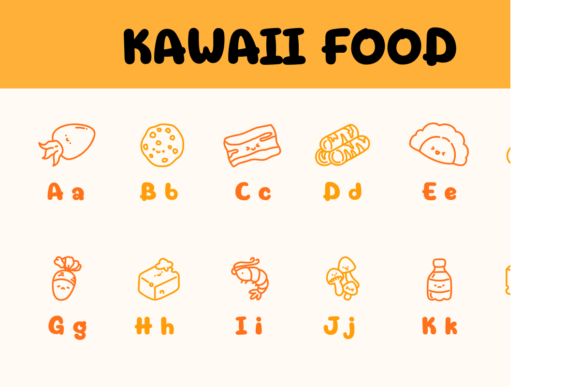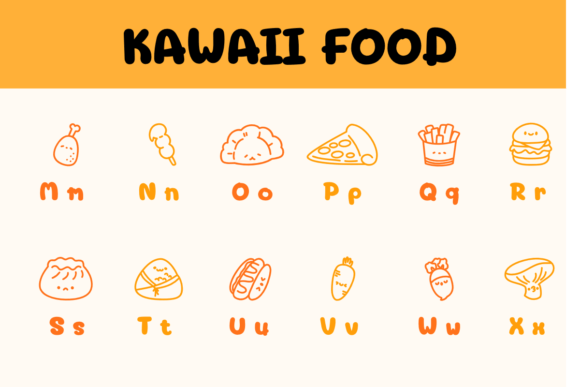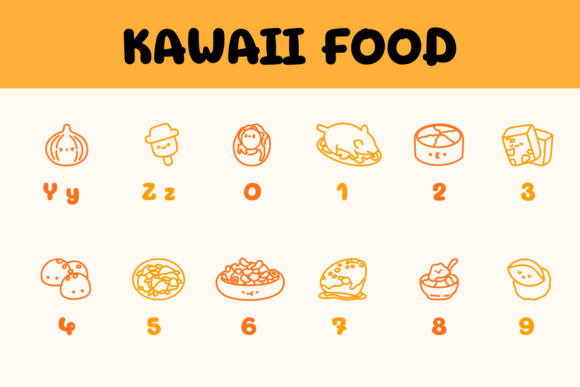
Introduction to Kawaii Food Font
For designers, finding the right design resource can make all the difference in bringing a creative project to life. That’s where the Kawaii Food Font comes in – a high-quality dingbats font with a sketched theme that’s perfect for adding a playful touch to your designs.
With its transparent background and free download option, this versatile font is a valuable asset for designers looking to elevate their creative projects. Whether it’s a wedding invitation, DIY craft, or logo design, the Kawaii Food Font is sure to add a touch of sweetness and whimsy to your work.
Key Features of Kawaii Food Font
- Unique, playful characters featuring cute food icons, perfect for adding a touch of whimsy to your design.
Honest Review: Kawaii Food Font
I recently came across the Kawaii Food Font, a free download designed to add a playful touch to creative projects. As a designer, I was eager to test its usability and overall quality.
- The Kawaii Food Font offers a wide range of food-related characters, including fruits, desserts, and drinks, making it perfect for restaurant menus, food blogs, and social media posts.
- The font is limited to a specific style, which may not appeal to designers seeking a more versatile or modern look.
- The character set is not as extensive as some other fonts, which may require designers to use additional fonts to achieve the desired look.
Overall, the Kawaii Food Font is a great addition to any designer’s toolkit, especially for projects that require a playful and whimsical touch. While it may have some limitations, its high quality and creative potential make it a valuable design resource.
Kawaii Food Font is a high-quality design resource ideal for creative projects that require a touch of whimsy and fun. With a transparent background, this font is perfect for overlaying on images or using as a standalone element.
Kawaii Food Font is perfect for:
- Food blog headers and graphics.
- Restaurant menu designs.
- Food-themed party invitations and decorations.
To ensure the Kawaii Food Font looks its best on different backgrounds and devices, we recommend using a transparent background when designing with the font. This will allow the font to take on the color of the background, creating a seamless and visually appealing design. Additionally, make sure to use a high-resolution version of the font to ensure it looks crisp and clear on various devices and screen sizes.